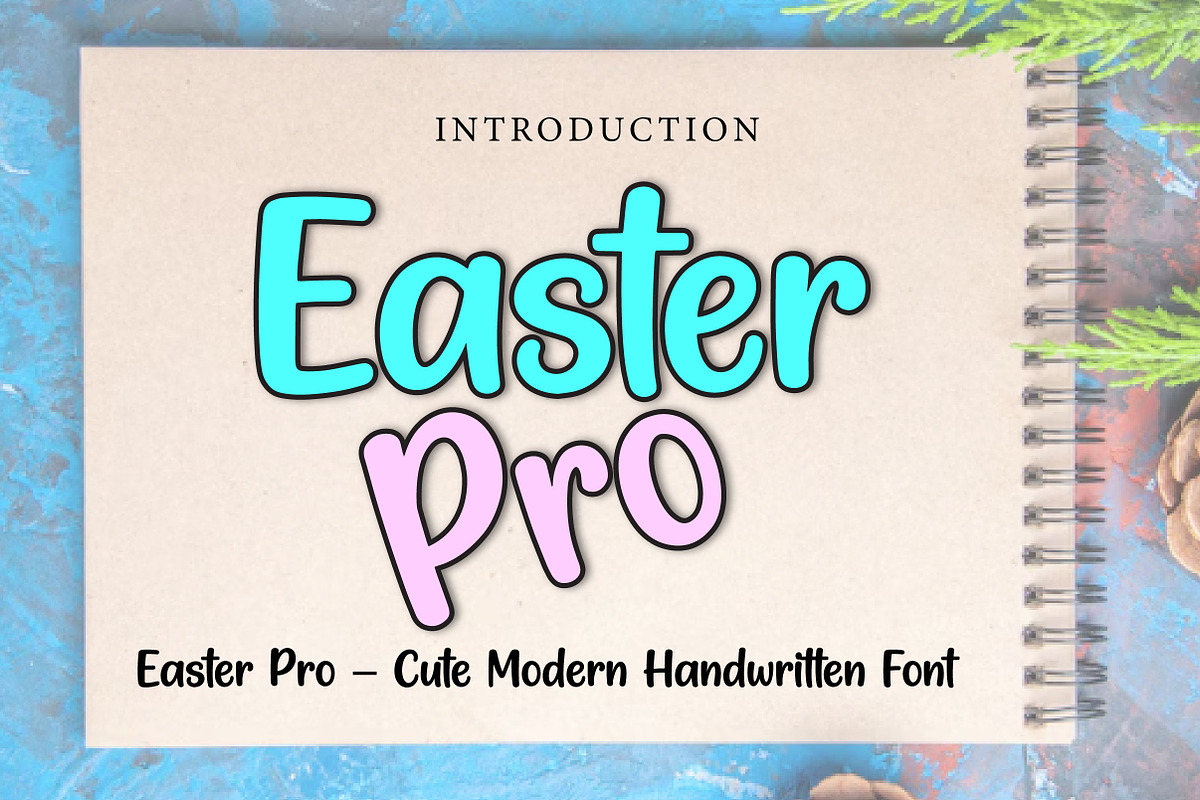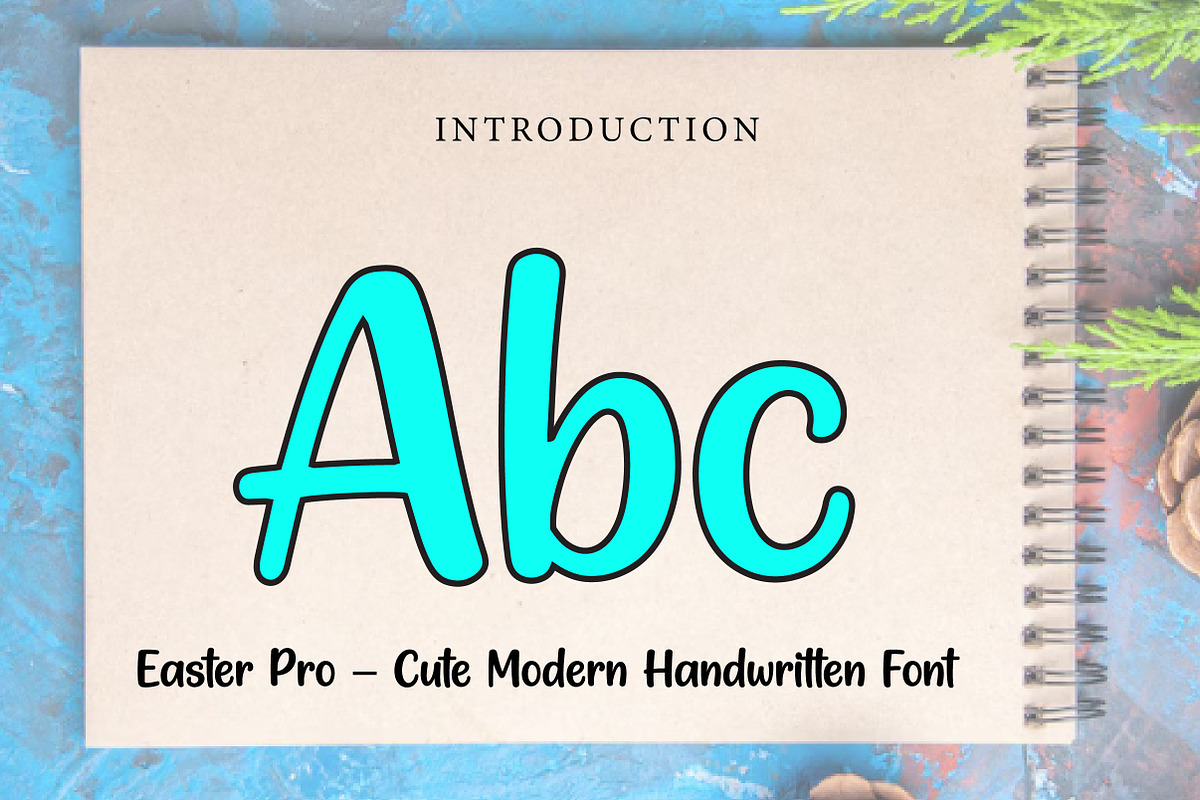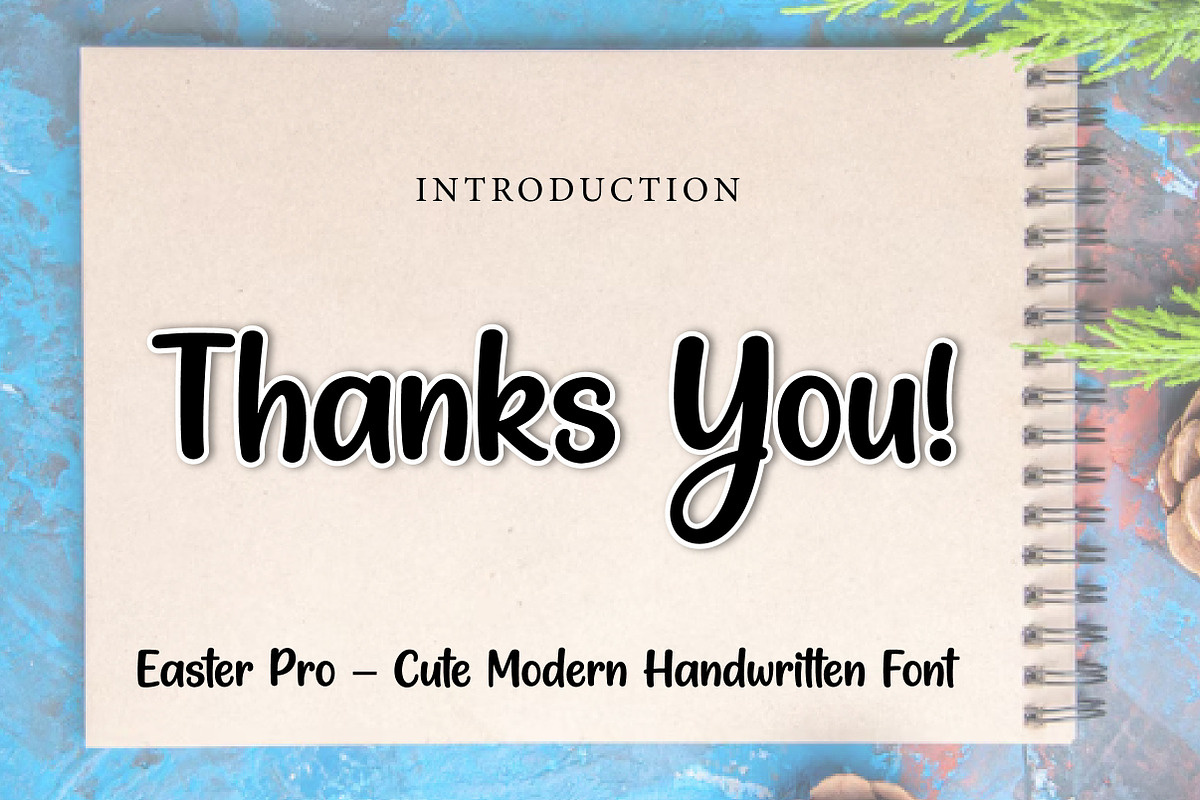
Easter Pro
Easter Pro – Cute Modern Handwritten Font
Easter Pro is a cute, clean, and modern handwritten font, perfect for Easter designs, branding, invitations, packaging, and cheerful seasonal projects.
Easter Pro is a soft and stylish handwritten font designed to bring simplicity, charm, and a festive touch to your designs. With its rounded shapes, smooth strokes, and clean letterforms, this font creates a friendly and modern look that feels both playful and professional.
Its minimal yet cheerful style makes Easter Pro perfect for seasonal and creative projects that need a warm and approachable feel. Whether you are designing Easter greeting cards, spring invitations, product packaging, social media graphics, stickers, or branding, this font helps your typography look fresh, clean, and visually appealing.
The balanced handwritten structure ensures excellent readability while maintaining a soft and playful personality. Suitable for both digital and print use, Easter Pro is a great choice for designers who want a font that feels cute, modern, and versatile.
Perfect For Easter and spring designs Greeting cards Holiday invitations Seasonal branding Product packaging Social media graphics Stickers and labels Cute logos and headlines Craft and DIY projects Clean typography layouts Font Features Uppercase letters Lowercase letters Numbers & punctuation Clean handwritten style Smooth and rounded shapes Friendly and modern look Perfect for display use